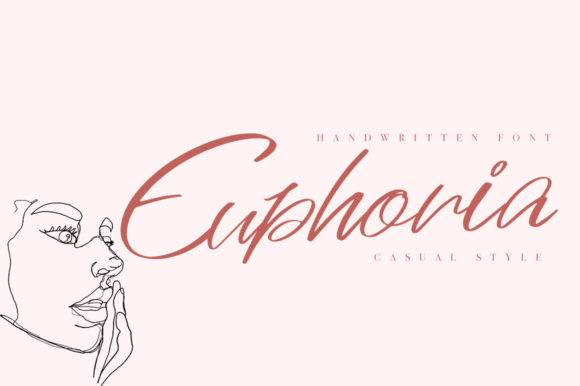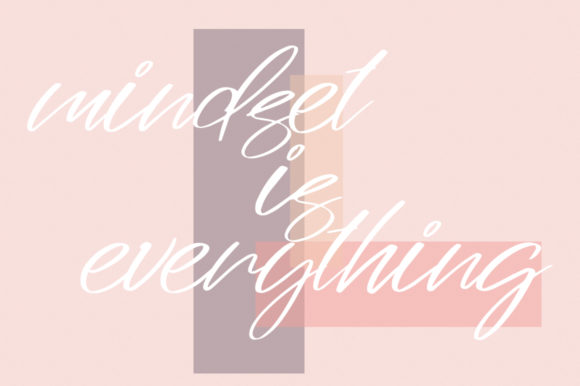
About Euphoria Font
Euphoria is a truly captivating and elegant script font that exudes sophistication and charm. With its flowing and graceful letters, it adds a touch of luxury to various design projects. Here are some creative ways to use Euphoria font to enhance your designs:
1. Wedding Invitations: Create stunning and luxurious wedding invitations using Euphoria font to set the tone for a glamorous and romantic event.
2. Thank You Cards: Design elegant and heartfelt thank you cards with Euphoria font to express gratitude with a touch of refinement.
3. Quotes and Greeting Cards: Use Euphoria font to design beautiful quote prints and greeting cards for various occasions, making them even more special and memorable.
4. Logos and Branding: Craft sophisticated and stylish logos for your brand using Euphoria font to leave a lasting impression on your audience.
5. Business Cards: Elevate your professional image with elegant business cards featuring Euphoria font, making a statement of elegance and professionalism.
6. Social Media Graphics: Create eye-catching and glamorous social media graphics with Euphoria font to grab attention and enhance your online presence.
7. Blog Headers: Make your blog stand out with elegant and captivating headers using Euphoria font to make a strong visual impact.
8. Book Covers: Use Euphoria font for book titles and covers to add an air of sophistication and allure to your literary works.
9. Product Packaging: Incorporate Euphoria font into product packaging to give your products a touch of luxury and exclusivity.
10. Event Invitations: Design refined and elegant event invitations with Euphoria font for formal gatherings and special occasions.
11. Fashion and Beauty Industry: Utilize Euphoria font in fashion branding, beauty product labels, and promotional materials to convey a sense of style and sophistication.
12. Editorial Design: Enhance magazine layouts and editorial designs with Euphoria font to add a touch of class and elegance to the overall presentation.
The timeless and chic appeal of Euphoria font makes it a perfect choice for projects that require an elegant and refined touch. Whether it’s for personal or professional use, Euphoria font will effortlessly elevate your designs and leave a lasting impression on your audience. Embrace the enchanting allure of Euphoria font to create designs that exude grace, style, and sophistication.